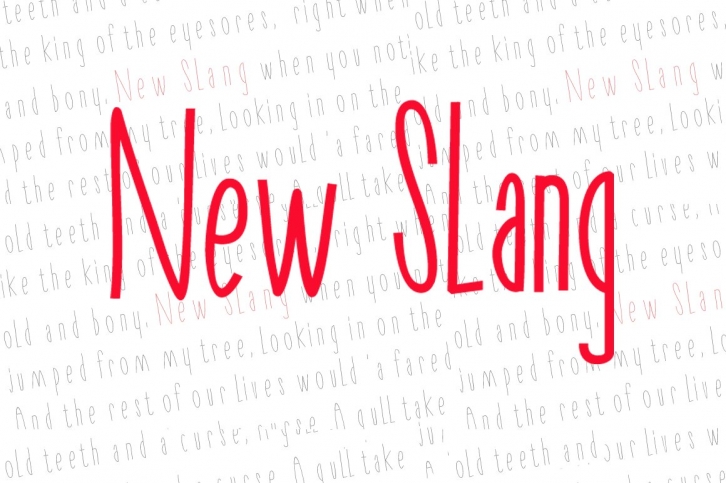
This is the New Slang family Pack it contains 3 weights: Regular, Bold and Heavy.
New Slang is thin and spidery, a lightweight font that has more in common with a scrawl or etched graffiti, perfect for a nicely weighted ransom note or cry for help. Upper case, lower cases and various other glyphs (euro).